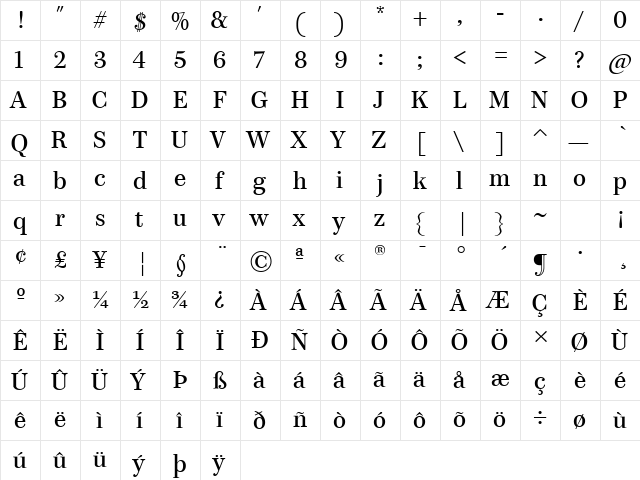
Paperback 48 TT Regular
| Foundry | House Industries |
| Designer | John Downer |
Design Context for Paperback 48 TT Typeface
Paperback 48 TT is a composed and adaptable typeface that performs quietly and consistently across a wide range of design contexts.